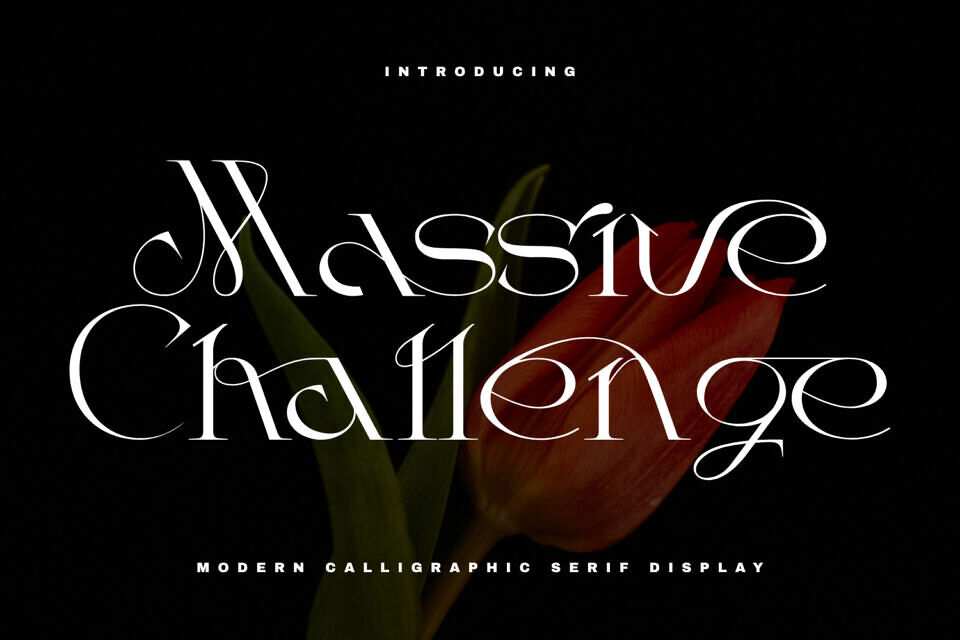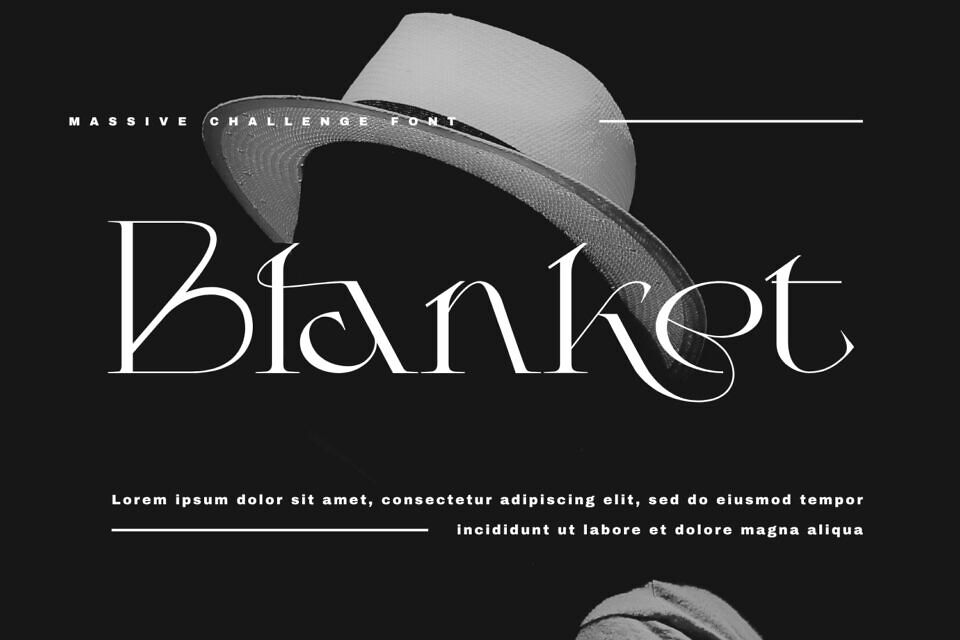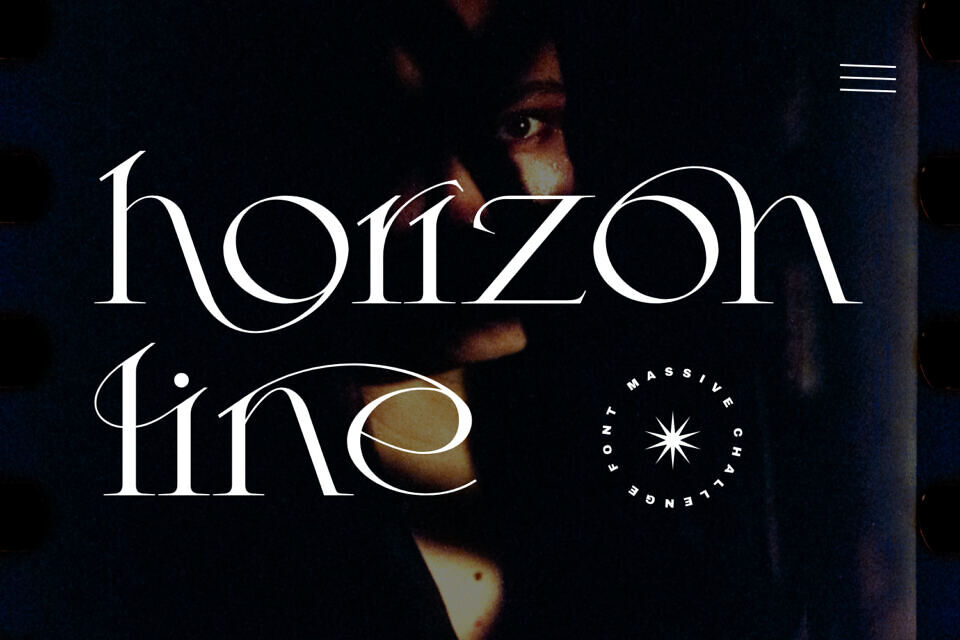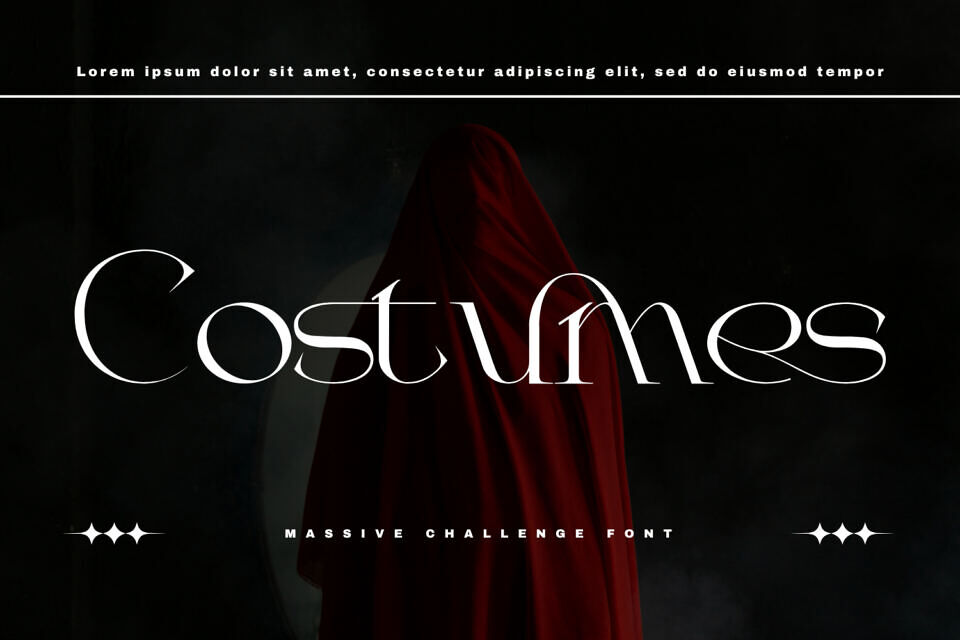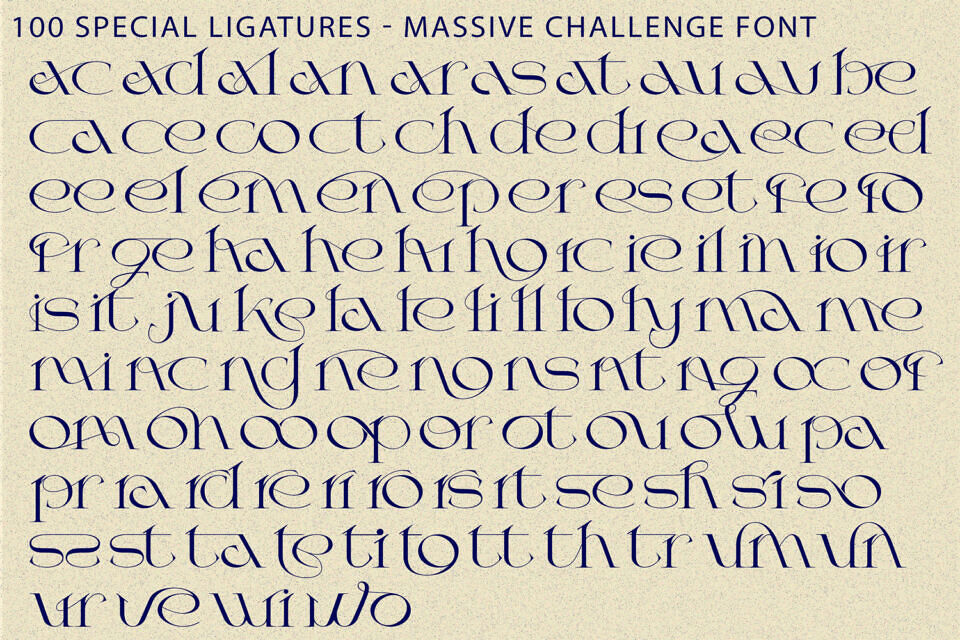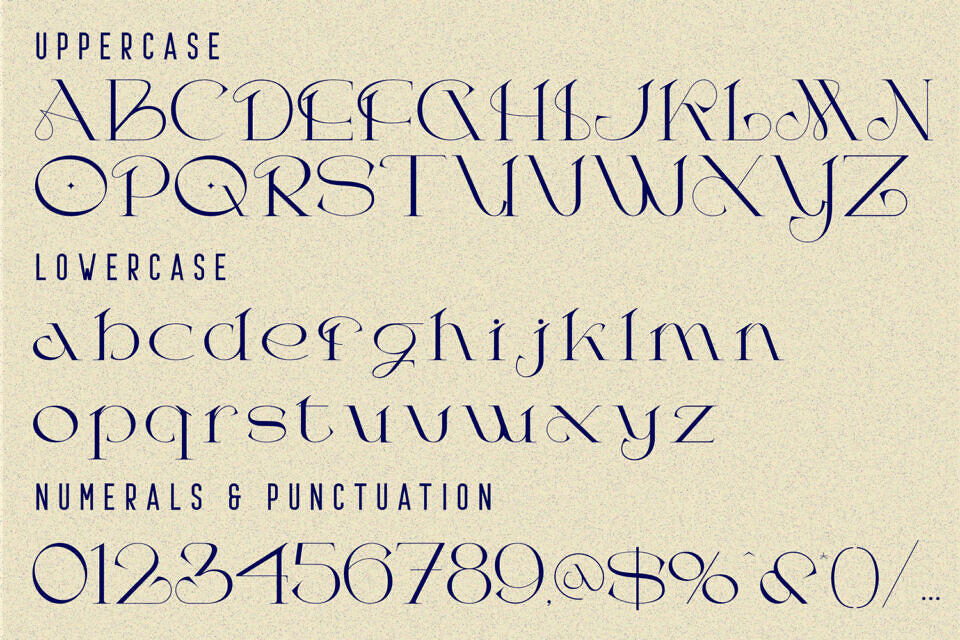
Massive Challenge Font
Massive Challenge is a luxurious modern serif display font that blends timeless elegance with contemporary sophistication. Featuring dramatic high-contrast strokes, delicate hairline details, and beautifully flowing swashes, this typeface creates a refined and graceful visual experience that instantly captures attention.
Designed with fashion-forward aesthetics in mind, Massive Challenge showcases elongated terminals, elegant curves, and expressive letterforms that bring a sense of movement and artistry to every word. Its distinctive character makes it ideal for creating memorable branding and visually stunning typography compositions.